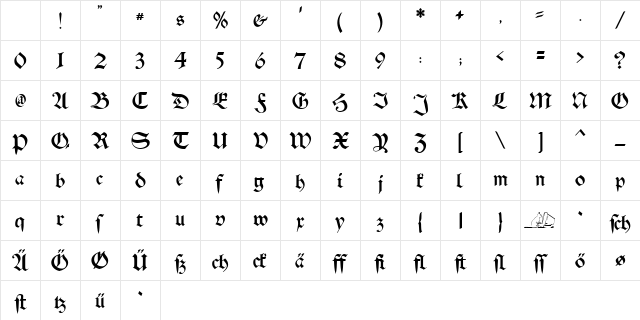
Complete Schwaben Alt Bold glyph index. Displaying only characters natively supported by Schwaben Alt Bold font.
Schwaben Alt is a composed and adaptable typeface that performs quietly and consistently across a wide range of design contexts. Its bold stroke weight gives it real presence on the page.